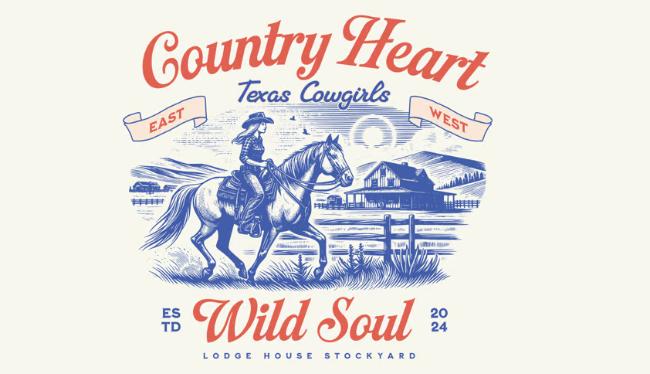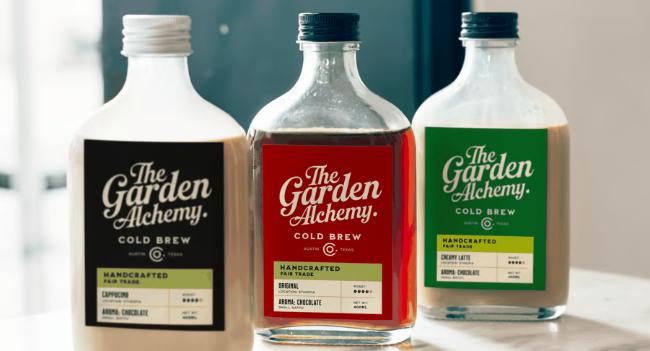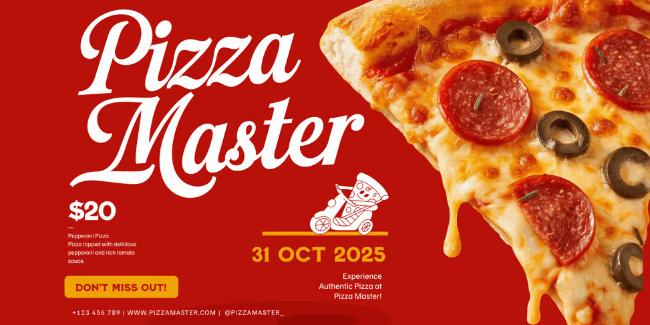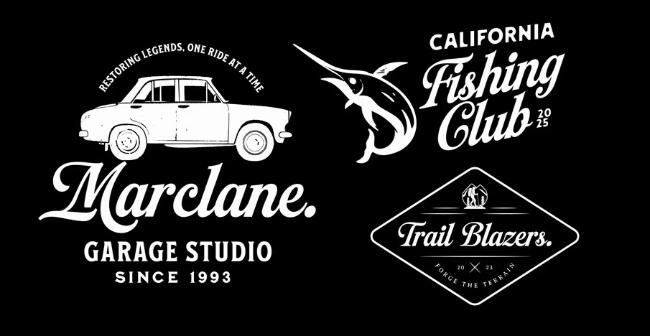
In the world of typography, handwritten fonts bring warmth, personality, and a human touch to designs. Among the many script fonts available, Bucklane Script stands out as a stylish, elegant, and slightly quirky choice. Whether you’re designing a logo, wedding invitation, or branding material, Bucklane Script adds a natural, handcrafted feel that’s both sophisticated and approachable.
What Makes Bucklane Script Special?
Unlike overly polished script fonts that can feel rigid, Bucklane Script retains the imperfections of real handwriting—swirling loops, varied stroke widths, and subtle inconsistencies that make it feel authentic. Its flowing letters connect smoothly, mimicking the natural motion of a pen on paper, yet it remains highly legible.
Best Uses for Bucklane Script
This font shines in projects that need a personal, artistic feel:
Wedding stationery (invitations, place cards)
Boutique branding (logos, packaging)
Social media graphics & quotes
Handwritten-style headlines